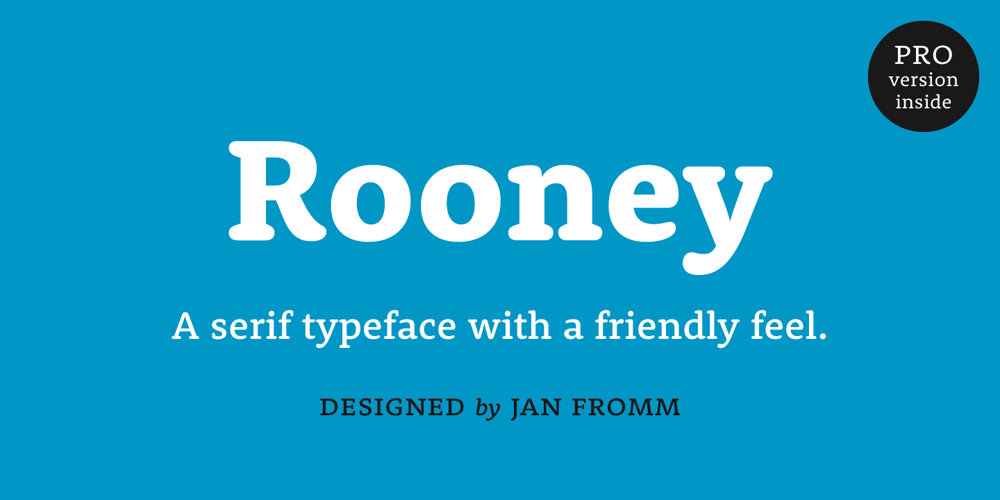
Rooney Font Family was designed by Jan Fromm and published by Jan Fromm. Rooney contains 24 styles and family package options. Rooney is based mainly on old-style serif construction principles, such as the angle of stress, the open letterforms and the medium contrast, which lends the typeface a serious feel. Nonetheless Rooney is equipped with rounded shapes and soft curves that add a warm and smooth overall impression. Rooney combines these two different approaches: It has distinctive, original letterforms, but remains very readable and versatile. It includes six weights from Light to Black and Italics. The Rooney family comes with a Pro version, which is intended for professional designers. It contains lots of OpenType features such as small caps, ligatures, different figure sets and alternate glyphs. With around 840 glyphs, Rooney Pro is a powerful tool for any kind of typographical task.